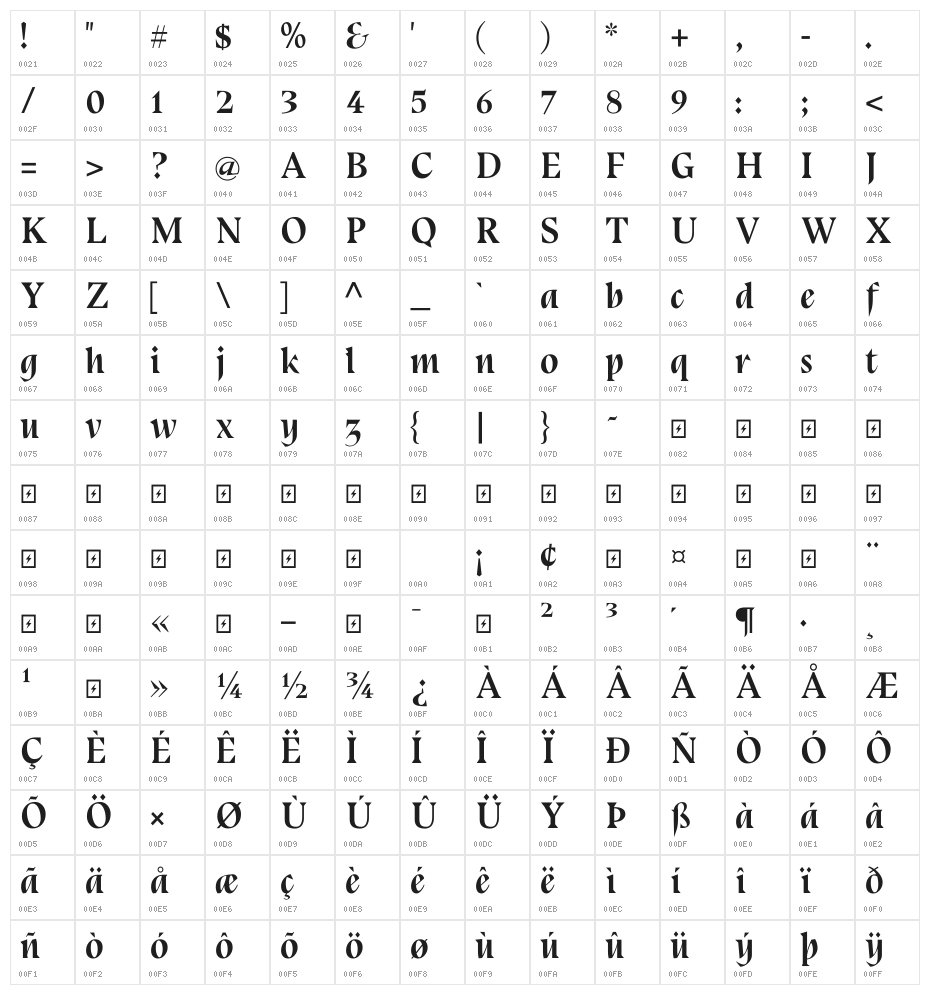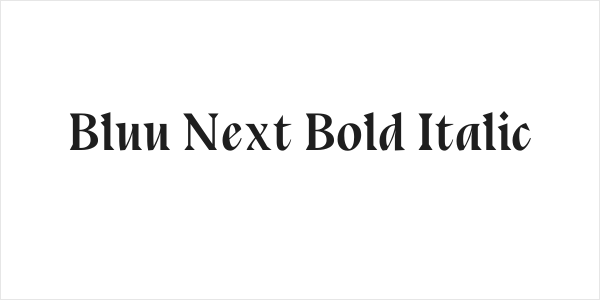
Bluu Next Bold Italic Font
Bluu Next Bold Italic Description
This font exhibits a bold and italicized serif style, characterized by its sharp, angular serifs and dynamic strokes. The uppercase letters are robust and commanding, while the lowercase letters maintain a fluid and elegant form. The numerals are consistent with the overall bold aesthetic, ensuring readability and impact. Special characters are crafted with the same attention to detail, providing a cohesive look across all glyphs. The italic slant adds a sense of movement and sophistication, making it suitable for both traditional and modern applications. The font's high contrast between thick and thin strokes enhances its legibility and visual appeal, making it a versatile choice for various design projects.
| Use Case | Headlines, Logos, Editorial design |
| Proposed Projects | Ideal for editorial design, book covers, branding, and high-impact headlines. |